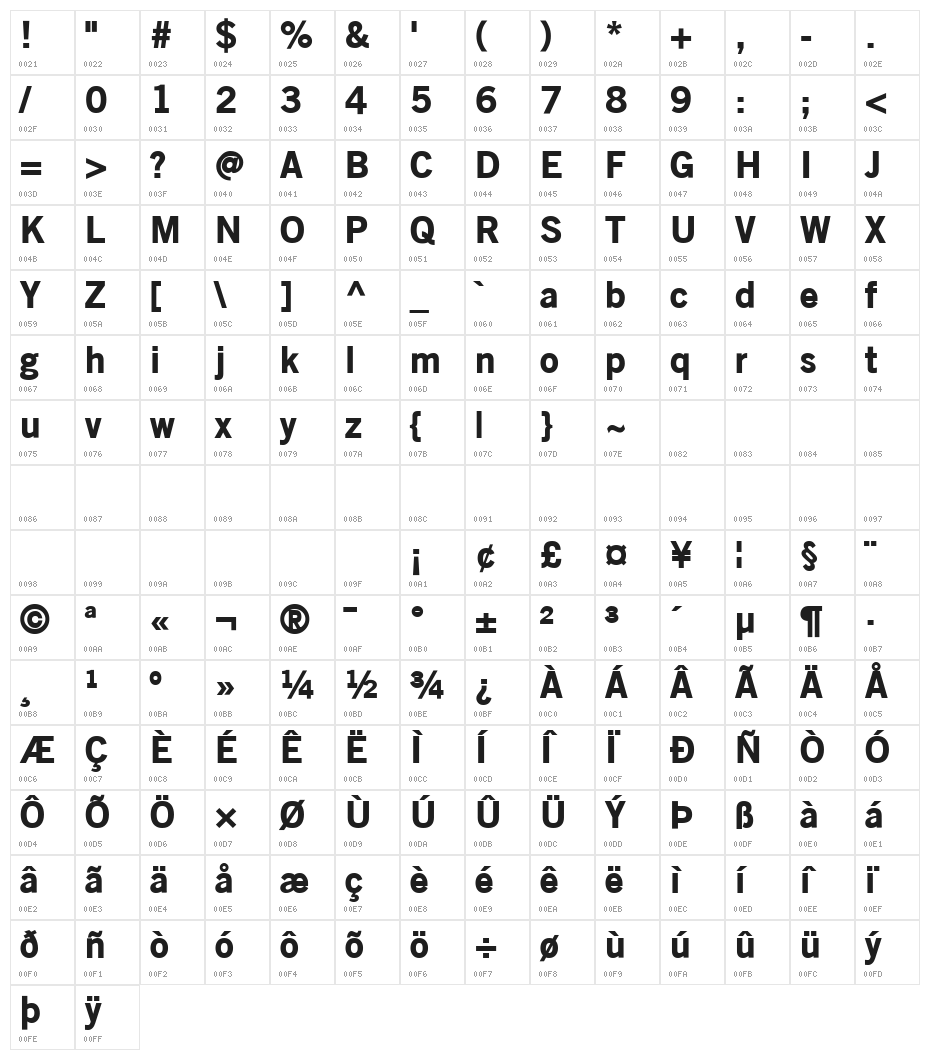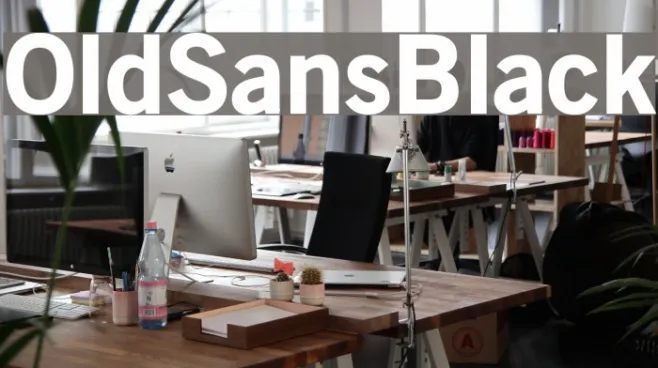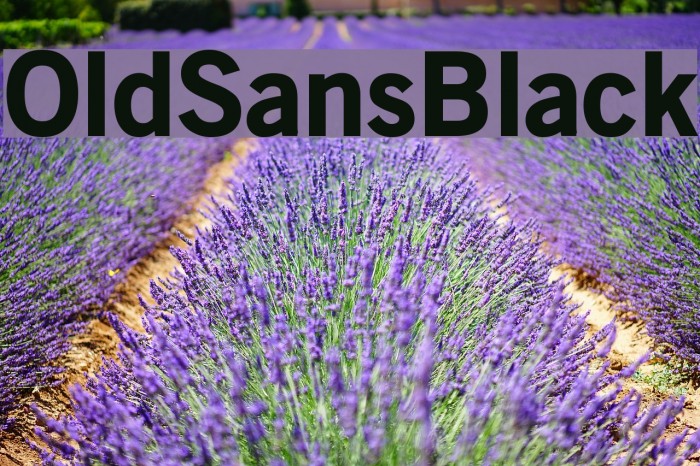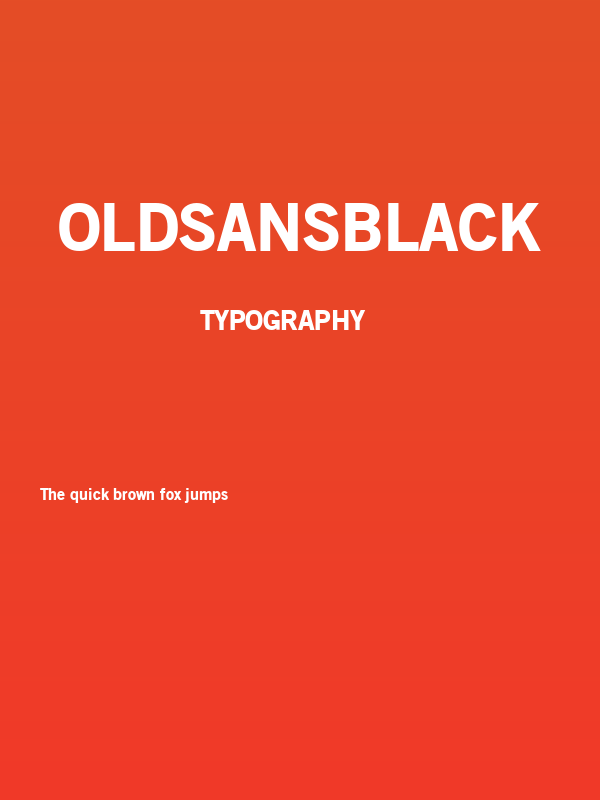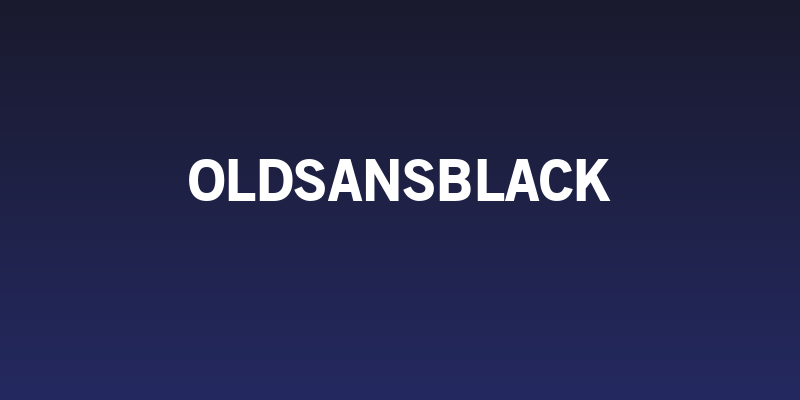
OldSansBlack Font
OldSansBlack Description
This font features a bold and robust design, characterized by thick strokes and a strong presence. Its sans-serif style gives it a modern and clean appearance, making it highly legible and impactful. The characters are uniformly wide, contributing to a balanced and cohesive look. The uppercase and lowercase letters maintain a consistent weight, enhancing readability. The numerals and special characters are designed with the same boldness, ensuring they stand out clearly. This font's simplicity and strength make it versatile for various applications.
Proposed ProjectsIdeal for headlines, posters, branding, and advertising where a strong visual impact is needed.